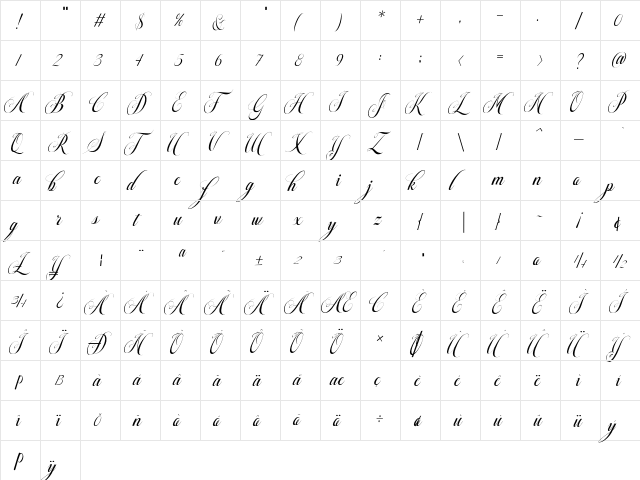
Delayed Love Regular
| Foundry | Abbas Type |
| Designer | Abbas Type |
Design Context for Delayed Love Typeface
Delayed Love is a composed and adaptable typeface that performs quietly and consistently across a wide range of design contexts.